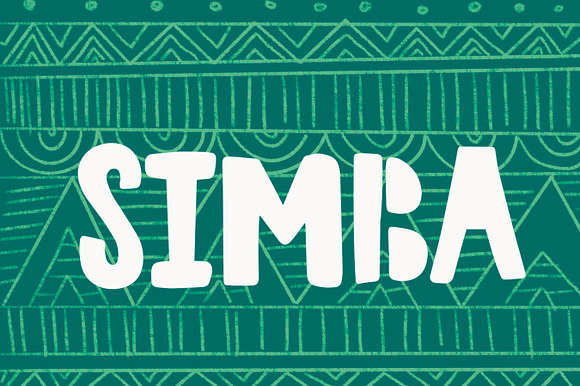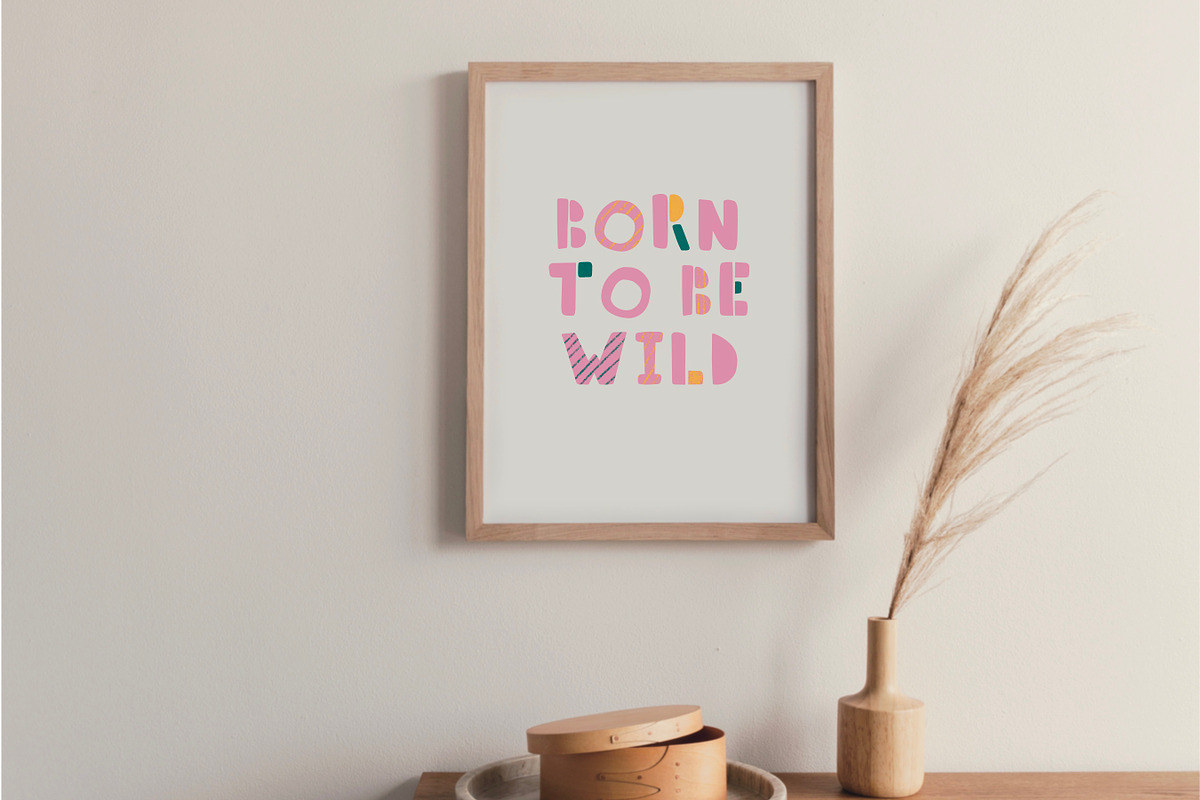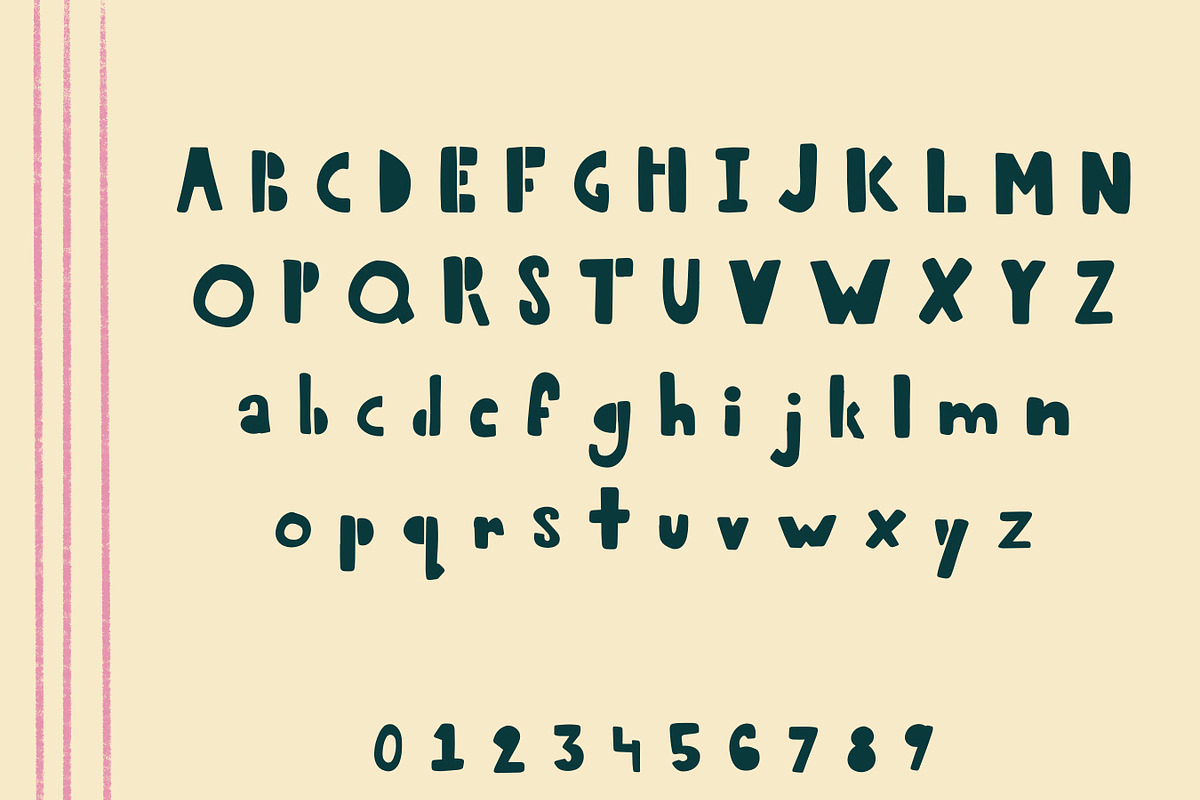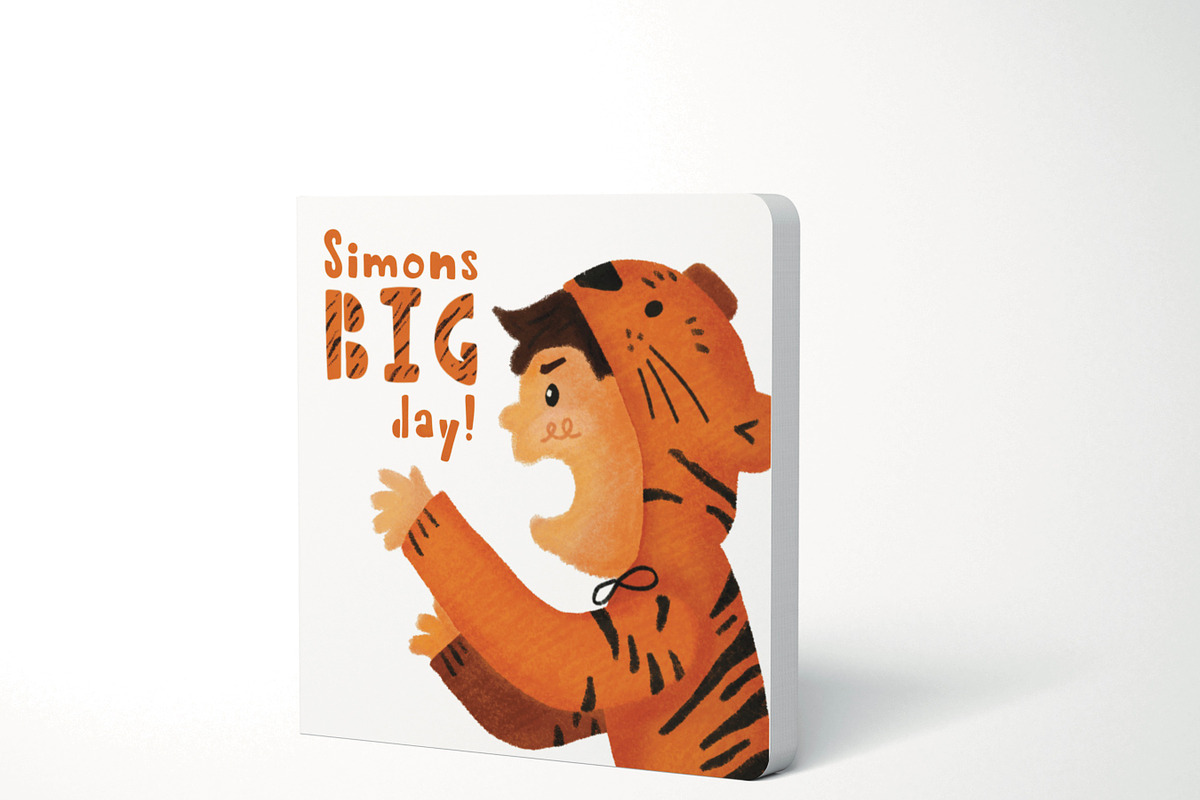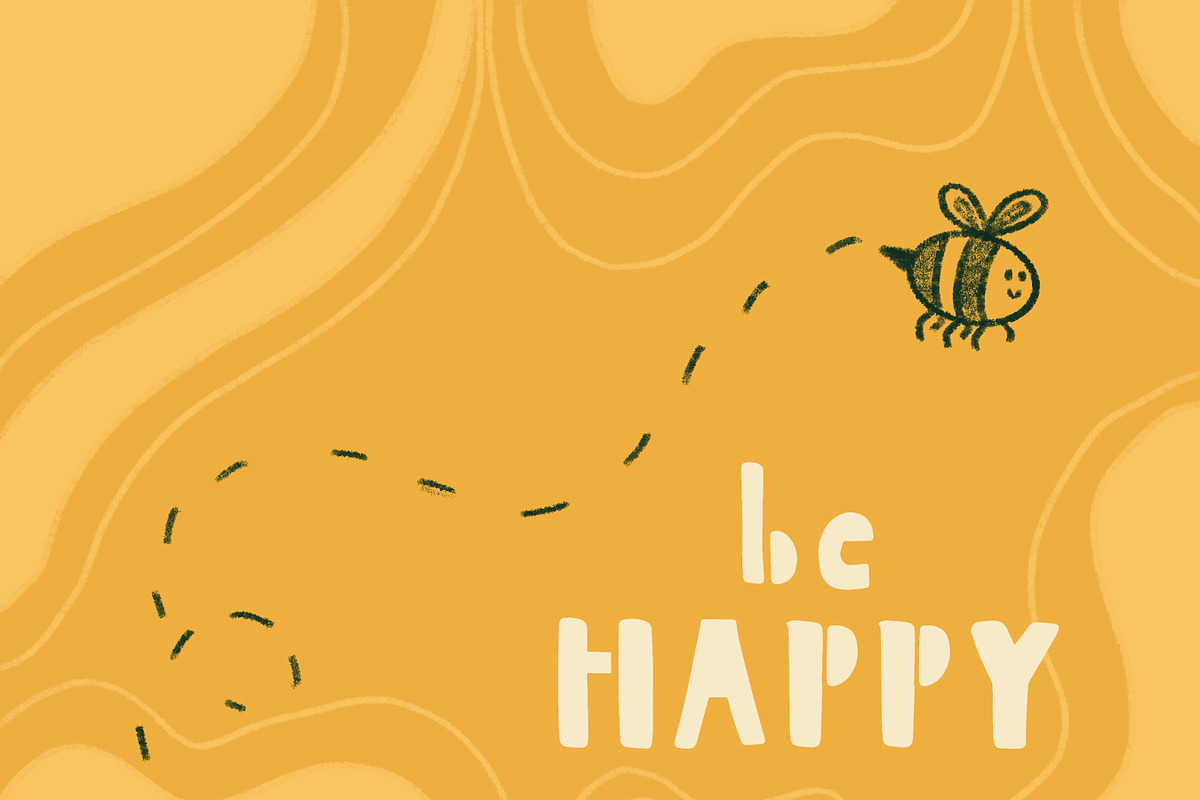
Simba Block Sans-Serif Font
Simba is a simple, hand-lettered block sans serif font. Simba is perfect for mugs, apparel, logos, kid oriented designs and more! It's also available as a web font, allowing you freedom to use as you please!
Uppercase and Lowercase Letters, one weight only
Punctuation & Numbers